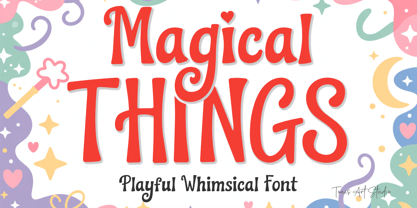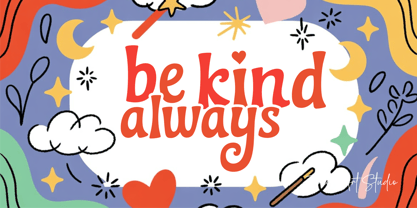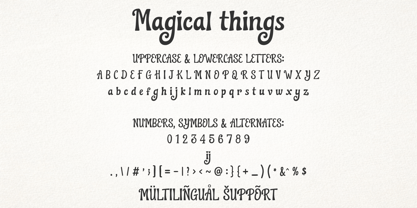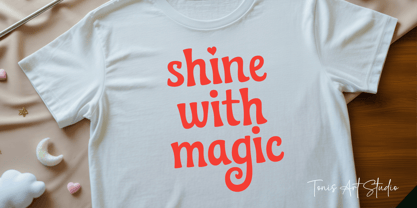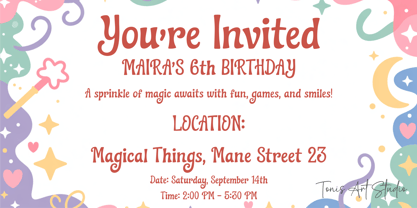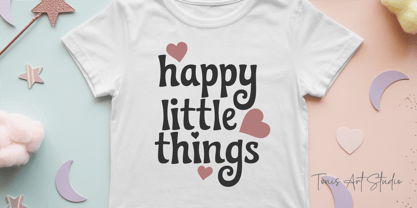
Magical Things
par Tonis Art Studio
La famille de polices Magical Things a été conçue par Tony Balios et publiée par Tonis Art Studio. Magical Things contient 1 styles. En savoir plus sur cette famille
Magical Things is a playful, whimsical display font designed to spark joy, imagination, and creativity. With soft curves, rounded letterforms, and charming details, this font delivers a friendly and expressive personality that feels warm, fun, and approachable. Designed with a large x-height and smooth rhythm, Magical Things remains highly readable while maintaining its joyful character. It works beautifully in children’s designs, greeting cards, invitations, branding, packaging, and playful editorial layouts. The font’s gentle swashes and rounded terminals add a magical, storybook feel without becoming overly decorative. Magical Things includes uppercase and lowercase letters, numbers, symbols, and multilingual support, making it versatile for both digital and print projects. Whether used for kids-focused branding or cheerful everyday designs, this font brings a sense of happiness and wonder to every word.